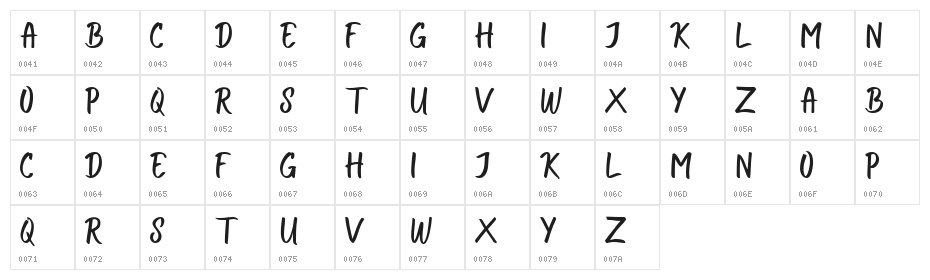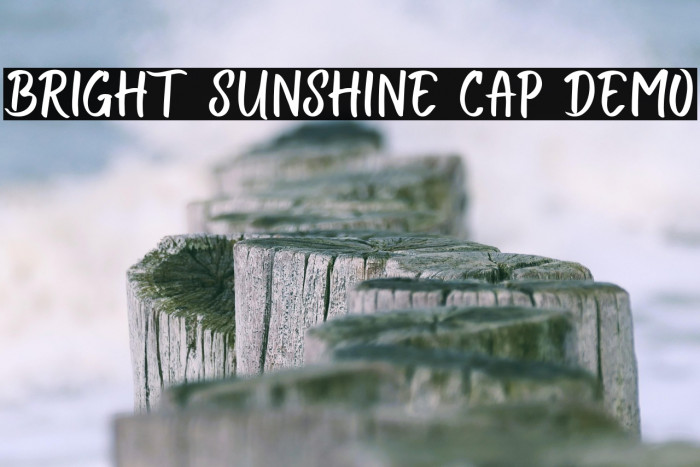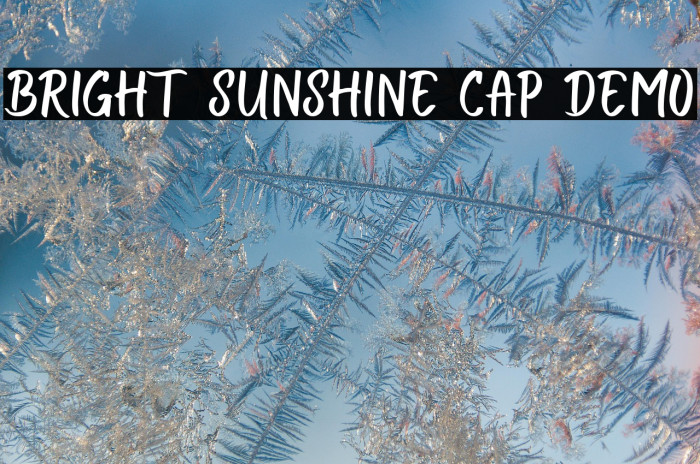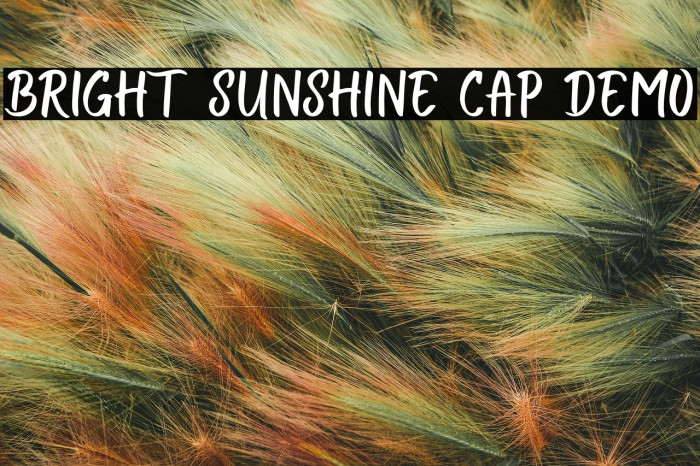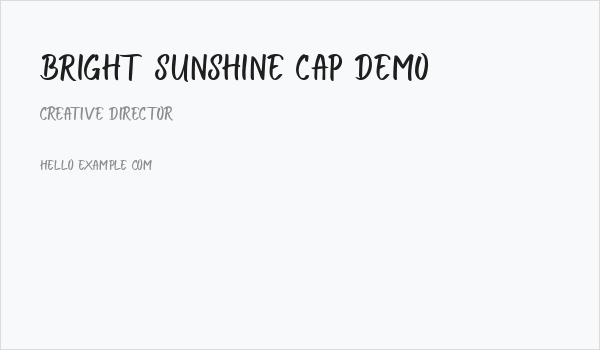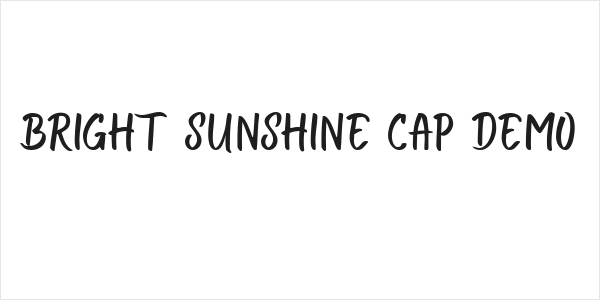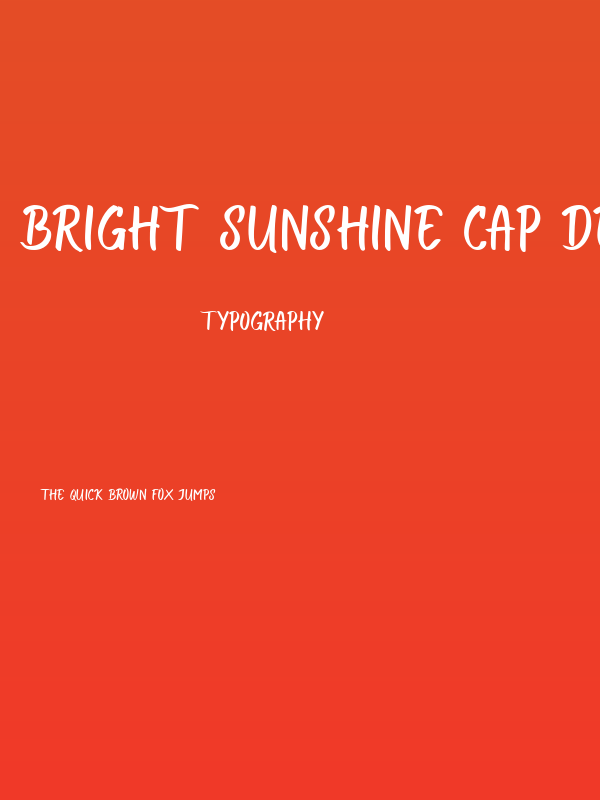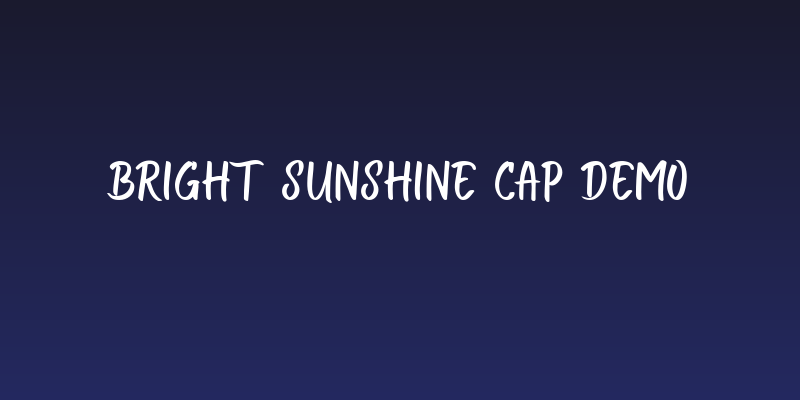
Bright Sunshine Cap Demo Font
Bright Sunshine Cap Demo Description
This font features a lively and energetic script style with a handwritten appearance. The letters are bold and slightly slanted, giving a sense of movement and fluidity. Each character is crafted with smooth curves and a consistent stroke width, contributing to its legibility and charm. The uppercase letters are particularly expressive, with playful loops and flourishes that add a touch of whimsy. This font is perfect for projects that require a personal and friendly touch, such as invitations, greeting cards, or branding materials. Its dynamic style makes it suitable for both digital and print media.
| Proposed Projects | Ideal for invitations, greeting cards, branding materials, and any project needing a personal touch. |